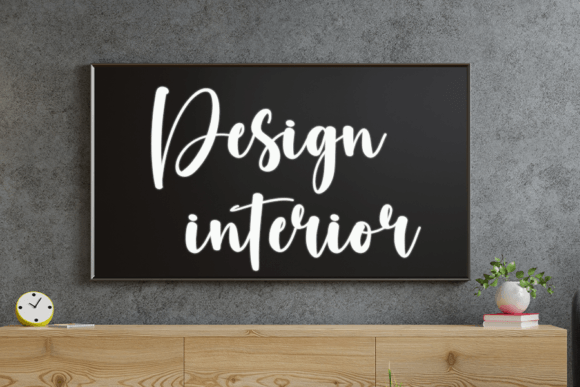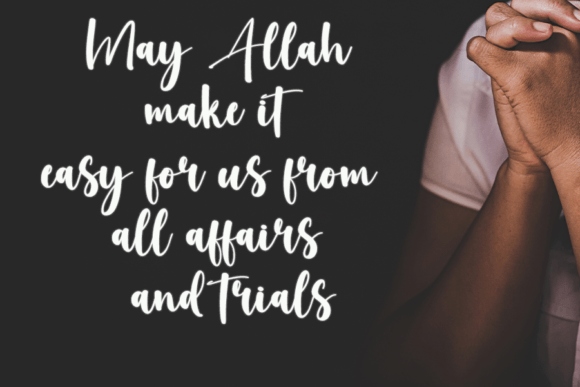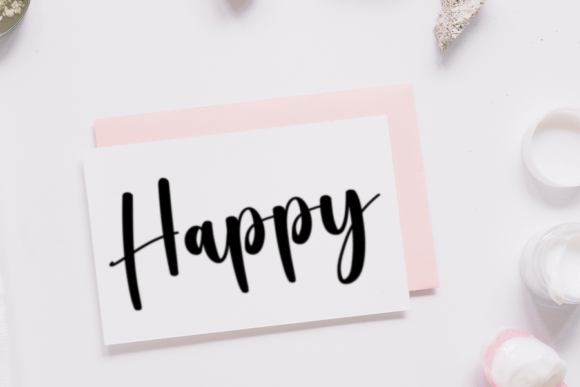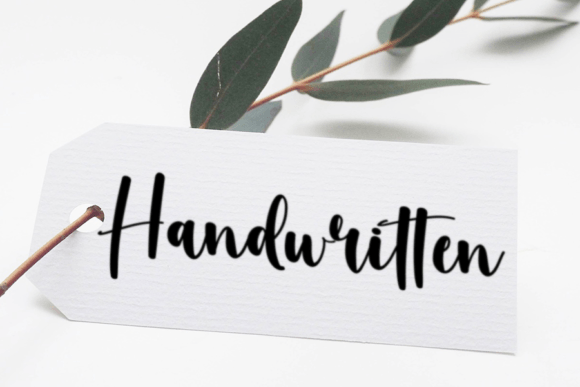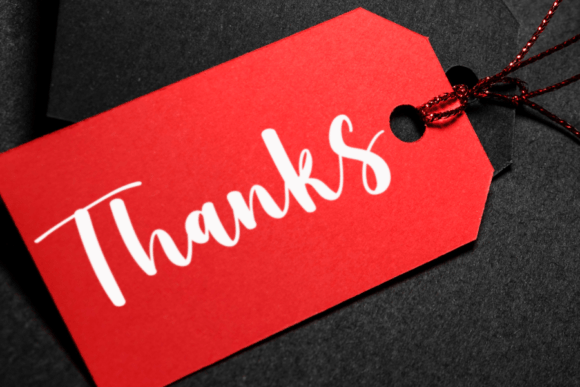
Introduction to Jatty Font
As a designer, you’ve probably experienced that moment when the perfect font can elevate an entire project. You’re pouring over design boards, tweaking layouts, and searching for that elusive font that brings everything together. For many of us, that moment comes when we discover a high-quality, versatile font that makes our creative vision shine.
Enter Jatty Font, a beautifully crafted handwritten font that embodies the perfect blend of classic calligraphy and modern design. With its impeccable form and contemporary atmosphere, Jatty Font is poised to become your go-to design resource for a wide range of creative projects.
Key Features of Jatty Font
- High-quality design resource ideal for creative projects, offering a unique and modern aesthetic.
- Designed with a clean and minimalist style, perfect for use in logos, headings, and body text.
Honest Review: Jatty Font
I recently had the chance to try out the Jatty Font for a creative project, and I must say, it’s been a game-changer. As a designer, I’m always on the lookout for high-quality design resources that can elevate my work. The Jatty Font definitely delivers.
What works well: ✨ The font’s unique, playful design is perfect for projects that need a bit of whimsy. The transparent background is also a huge plus, making it easy to integrate into any design. Plus, the fact that it’s a free download is a major bonus!
- Unique and playful design
However, there are a few limitations: ⚠️ The font may not be suitable for all types of projects, particularly those that require a more serious or formal tone. Additionally, the free version may have some limitations on usage or customization.
Overall, I’m thoroughly impressed with the Jatty Font. It’s a fantastic addition to any designer’s toolkit, and I would highly recommend it for any creative project that needs a bit of flair. With its high-quality design and transparent background, it’s a design resource that’s sure to impress.
How to Use Jatty Font
Jatty Font is a high-quality design resource ideal for creative projects. Its unique style and versatility make it a great addition to any design.
Jatty Font is commonly used in:
- Brochure design
Tips for Getting the Most Out of Jatty Font
For the best results, use Jatty Font with a transparent background to create a clean and modern design. Experiment with different font sizes and styles to find the perfect look for your project.
Alternatives to Jatty Font